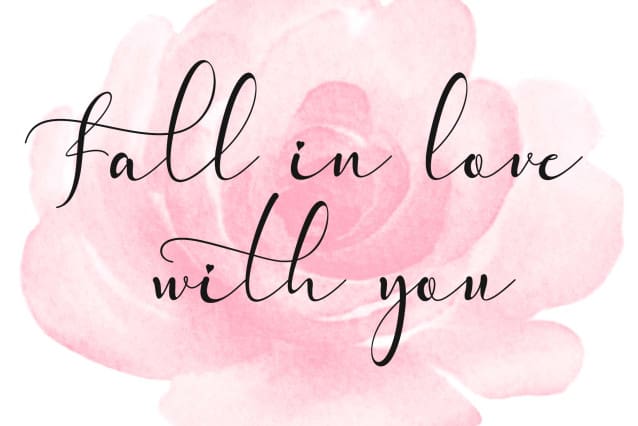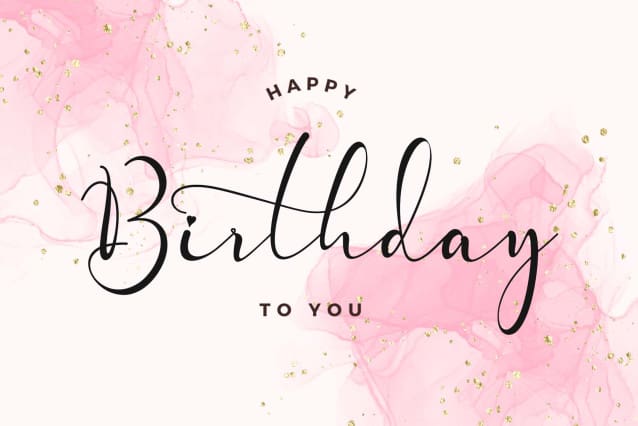
Dorothy Valentine Calligraphy Font
Dorothy Valentine Calligraphy Font is a beautiful and elegant handwritten font. This font is equipped with uppercase, lowercase, numerals, punctuation, and multilingual support. Very suitable for Valentine’s Day, weddings, engagements, invitations, Christmas, Easter, spring, summer, and others.